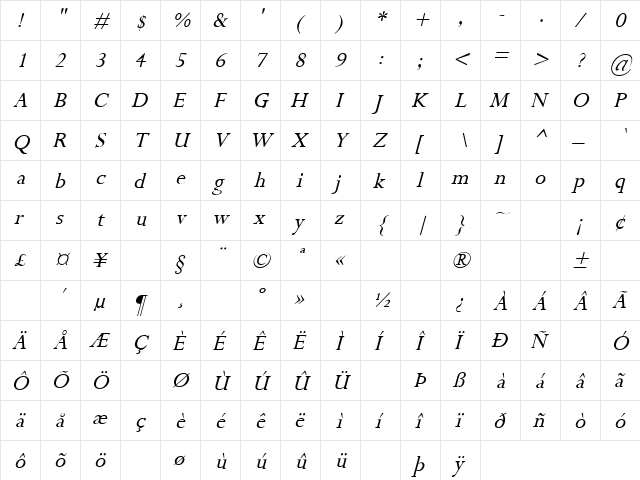
Sweet Emotion 7 Italic
Design Context for Sweet Emotion 7 Typeface
Sweet Emotion 7 takes a measured approach to typography — its balanced proportions and neutral character make it a reliable workhorse for both digital and print work. The dynamic lean of this cut emphasises speed and emphasis in any layout.
Pro Tip: Use Sweet Emotion 7 for emphasis, pull quotes, and subheadings where its slanted energy can add rhythm to the layout.